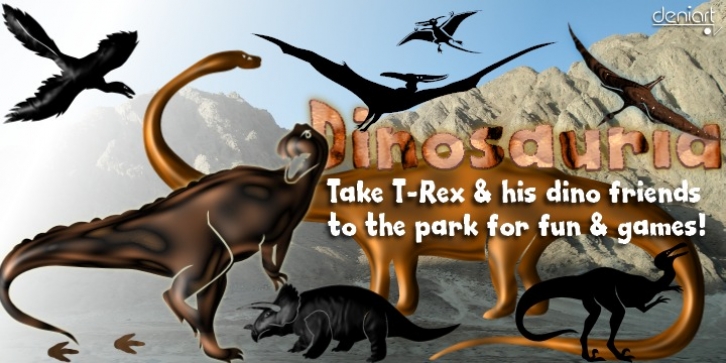
Dinosauria downloadDesigner: Denise Koehler
Publisher: Deniart Systems
Let these Mesozoic dinosaurs adorn all your documents!
This series contains an assortment of 52 dinosaurs, flying reptiles and birds from each period ranging from the vicious carnivores like Tyrannosaurus Rex and Velociraptor to giant sauropods like Brontosaurus, to heavy Ceratopsians like the Triceratops, and Pterosaurs like the giant Quetzalcoatlus. In addition, you'll find 10 extra characters that feature trackprints, skulls and talons to help put all your imagework in perspective.